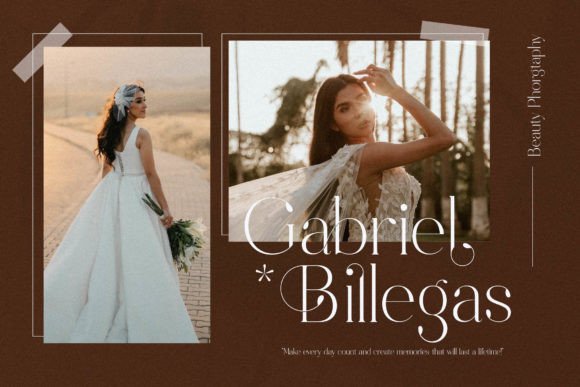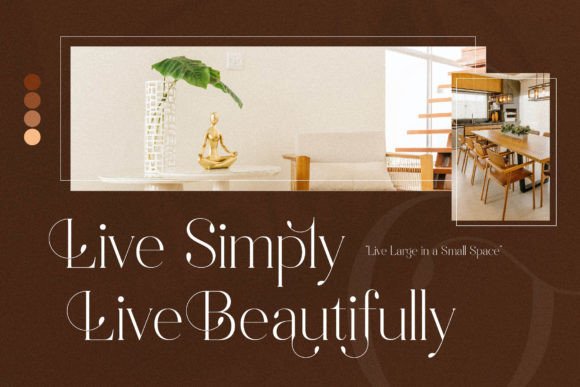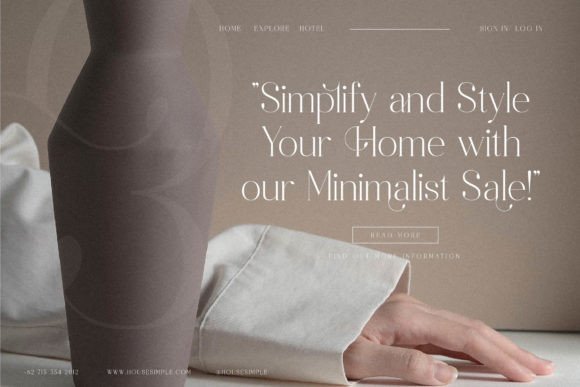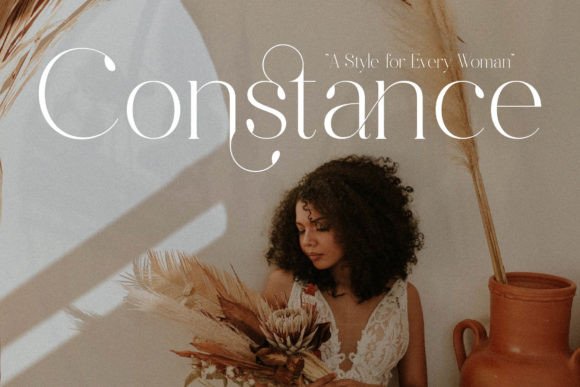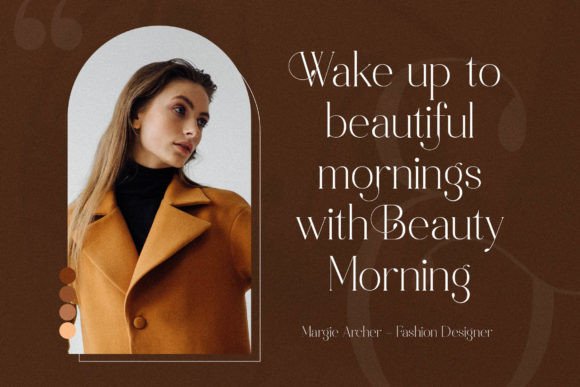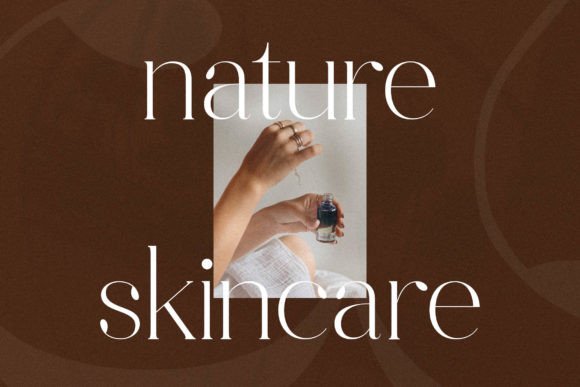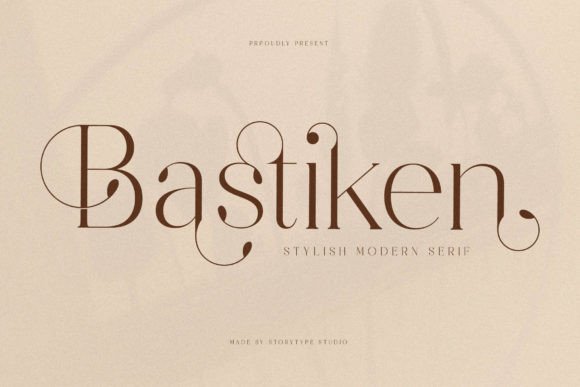
Bastiken Font: Elevate Your Designs with Elegance and Sophistication
In the world of typography, fonts play a crucial role in conveying the tone and personality of a brand or design. For designers and crafters seeking to add a touch of luxury and sophistication to their work, Bastiken Font is an excellent choice. This modern and stylish serif font boasts a unique appearance that sets it apart from other typefaces, making it perfect for a wide range of applications.
The Unique Characteristics of Bastiken Font
Bastiken Font is a serif typeface that exudes elegance and refinement. Its distinctive features include:
• Classic yet Modern Twist: Bastiken Font strikes the perfect balance between traditional serif elements and modern flair, making it versatile and suitable for various design projects.
• Unique Letterforms: Each letter in the Bastiken Font has its own unique character, ensuring that your designs stand out from the crowd.
• High Legibility: Despite its stylized appearance, Bastiken Font maintains high legibility, making it ideal for body text and headlines.
Perfect for Luxury and Fashion Brands
Luxury and fashion brands require typography that communicates their high-end status and attention to detail. Bastiken Font fits the bill perfectly:
• Elegant Logos: Create stunning logos that convey sophistication and luxury with Bastiken Font.
• Fashion Magazines and Editorials: Elevate your fashion publications with a font that screams style and glamour.
• Apparel and Accessories: Use Bastiken Font to add a touch of elegance to your clothing and accessory branding.
Ideal for Various Design Projects
Bastiken Font’s versatility extends beyond luxury and fashion brands. It’s also perfect for:
• Lettering and Quotes: Add a touch of sophistication to your lettering and quote designs.
• Magazines and Publications: Use Bastiken Font to create visually appealing magazine layouts and publications.
• Branding and Packaging: Elevate your brand’s packaging and branding with a font that exudes luxury and refinement.
Why Choose Bastiken Font?
With so many fonts available, why choose Bastiken Font? Here are a few compelling reasons:
• Unique and Exclusive: Bastiken Font’s distinctive appearance sets it apart from other typefaces, ensuring your designs stand out.
• High-Quality Design: Crafted with attention to detail, Bastiken Font is a high-quality typeface that reflects professionalism and sophistication.
Bastiken Font is a versatile and stylish serif typeface that can elevate your designs to new heights. Whether you’re working on a luxury brand, fashion publication, or personal project, this font is sure to impress. With its unique appearance, high legibility, and ease of use, Bastiken Font is an excellent addition to any designer’s toolkit.